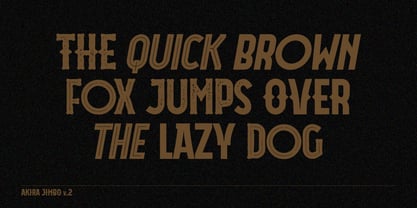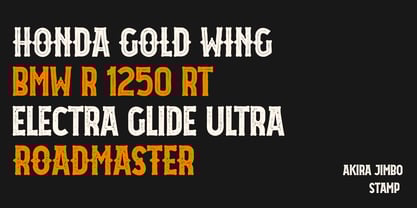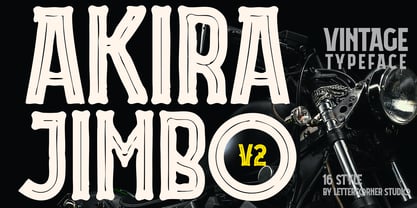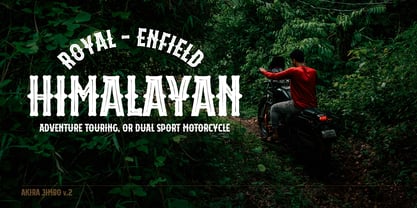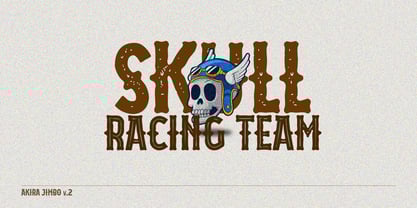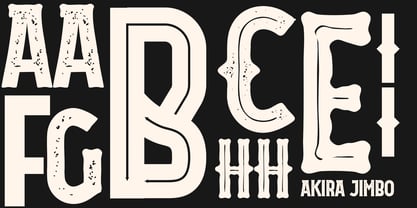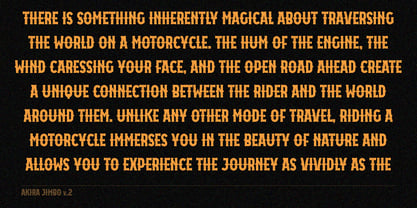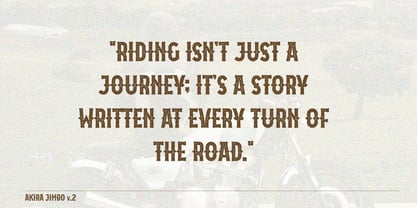
Akira Jimbo v2
by Mevstory Studio
The Akira Jimbo v2 Font Family was designed by Muhammad Afif Ersya and published by Mevstory Studio. Akira Jimbo v2 contains 16 styles and family package options. More about this family
Akira Jimbo v.2 Font will gives a feel of vintage, classic, old, handmade looked like by Lettercorner Studio. It contains uppercase, lowercase, punctuation and symbols. Freudian is is perfect for people looking for vintage aesthetic or hand drawn logo. Suitable for any graphic designs such as branding materials, t-shirt, print, business cards, logo, poster, t-shirt, photography, quotes, etc.
Designers: Muhammad Afif Ersya
Foundry: Mevstory Studio